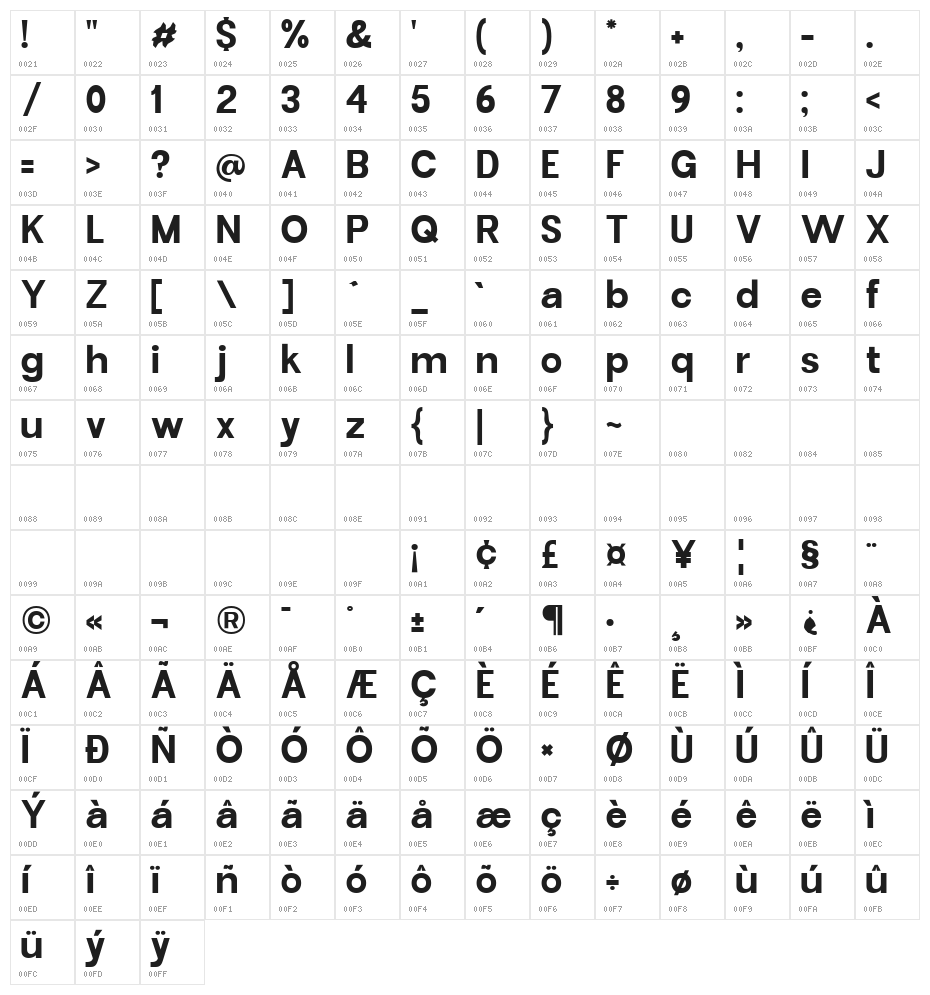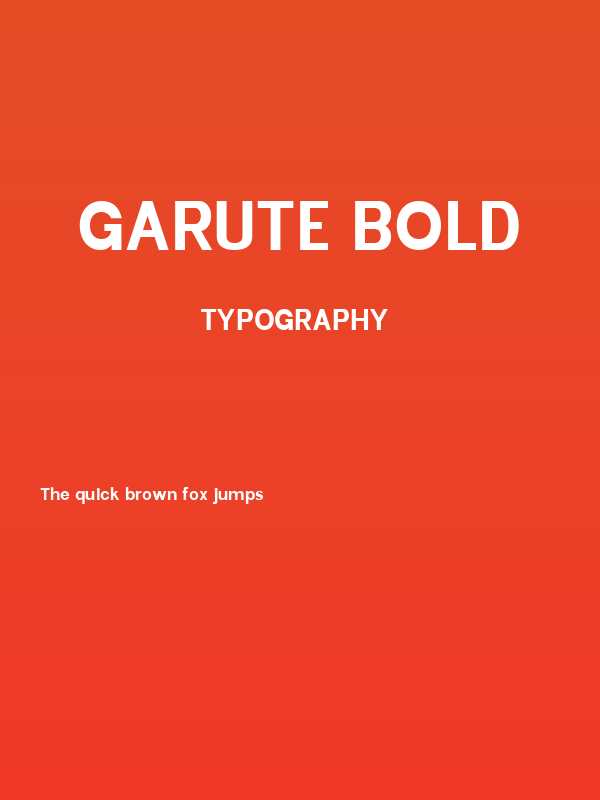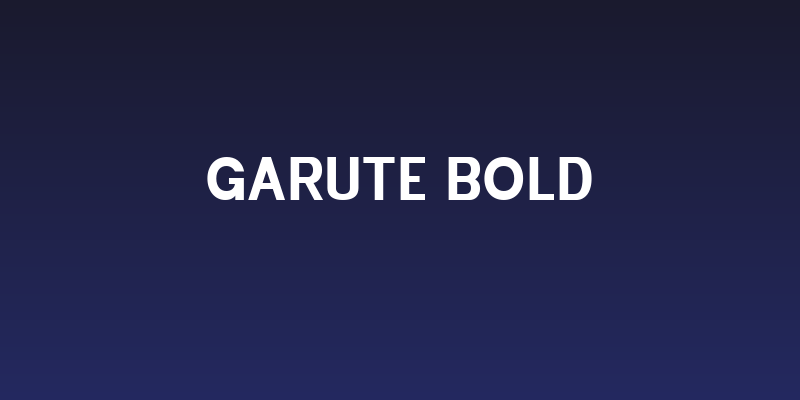
Garute Bold Font
Garute Bold Description
This font features a bold and robust design, characterized by thick strokes and a strong presence. It is a sans-serif typeface, offering a clean and modern look that is highly legible. The characters are evenly spaced, providing a balanced and harmonious appearance. The uppercase and lowercase letters maintain a consistent style, with rounded edges that soften the overall boldness. The numerals are clear and distinct, making them easy to read. Special characters are well-integrated, maintaining the font's cohesive aesthetic. This typeface is versatile, suitable for both digital and print media.
| Proposed Projects | Ideal for branding, headlines, posters, and digital media where a strong, modern presence is required. |